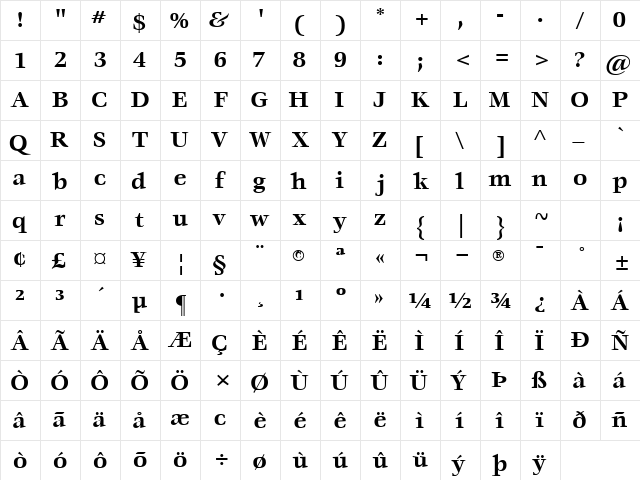
VoraceSSK Bold
Design Context for VoraceSSK Typeface
VoraceSSK offers clean, dependable letterforms without strong stylistic allegiance, making it a practical choice for designers who need flexibility. The heavy weight commands attention and anchors typographic hierarchies.